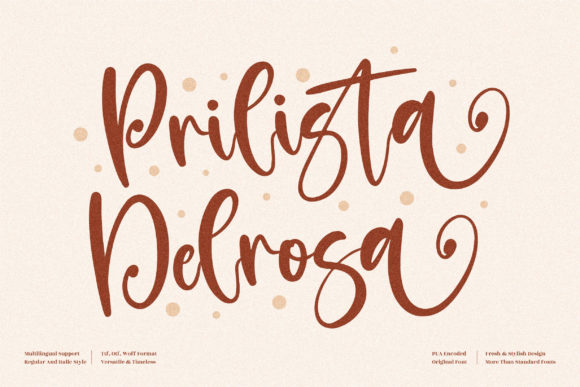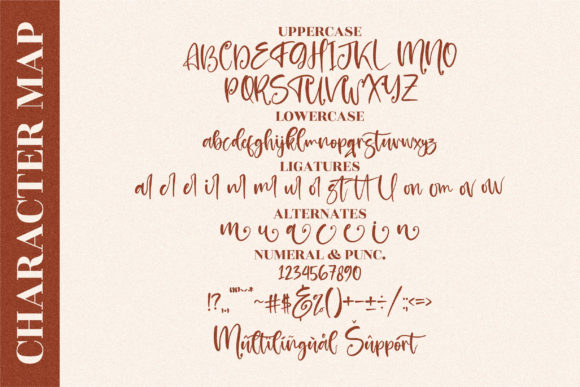
About Prilista Delrosa Font
Prilista Delrosa is a lovely script font featuring charming, playful characters that seem to dance along the baseline. Add this font to your most creative ideas, and notice how it makes them stand out! Prilista Delrosa is PUA encoded which means you can access all of the glyphs and swashes with ease!